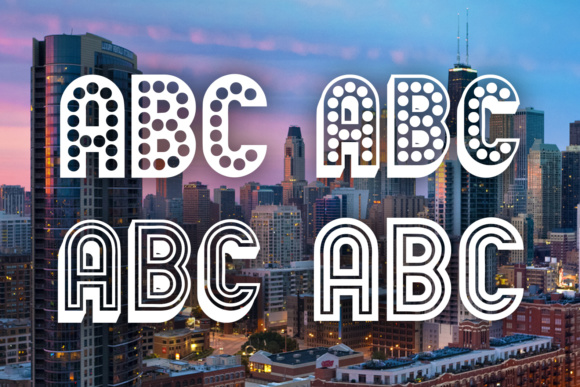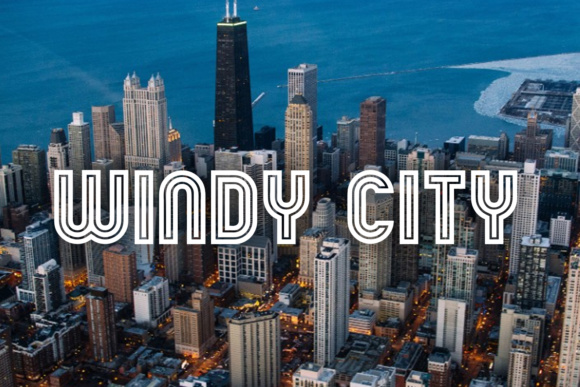
The Chicago Font: A Retro Revival for Your Design Projects
I’ll never forget the time I was working on a vintage-inspired poster for a client’s retro-themed event. I had spent hours browsing through font libraries, but nothing seemed quite right. That was until I stumbled upon the Chicago font family. Its unique blend of nostalgia and modernity instantly captured the essence of the event, and I knew I had found the perfect fit. In this article, I’ll share my love for the Chicago font, its features, and how to make the most of it in your design projects.
An Honest Review of Chicago Font
The Chicago font family has quickly become a staple in my design toolkit, and for good reason. Here are some things I love about it:
- ✨ Retro charm: Chicago’s vintage vibe is perfect for projects that require a nostalgic feel.
- ✅ Versatility: This font family is suitable for a wide range of applications, from posters and flyers to digital graphics and branding.
- 💡 Legibility: Chicago’s clean lines and classic letterforms make it easy to read, even at smaller sizes.
Of course, no font is perfect, and Chicago has a few quirks:
- 🤔 Limited language support: Chicago’s character set is focused on Latin-based languages, so it may not be the best choice for projects that require support for non-Latin scripts.
- ⚠️ Some glyphs may be a bit quirky: A few glyphs, such as the @ symbol, may not be immediately recognizable.
- Experiment with OpenType features, such as stylistic alternates, to add visual interest to your design.
The Chicago font was inspired by the classic typography of the 1950s and 60s, with a modern twist. Its designer aimed to create a font that would evoke the nostalgia of a bygone era while still feeling fresh and contemporary. The result is a font that’s both timeless and trendy.
| What type of projects is Chicago font best suited for? | Chicago font is perfect for projects that require a retro or vintage feel, such as posters, flyers, and branding materials. |
| Is Chicago font suitable for body text? | While Chicago font is legible, it’s primarily designed for headlines and titles. For body text, you may want to consider a more traditional font. |
| Is Chicago font available in different weights? | Yes, Chicago font comes in a range of weights, making it versatile for various design applications. |